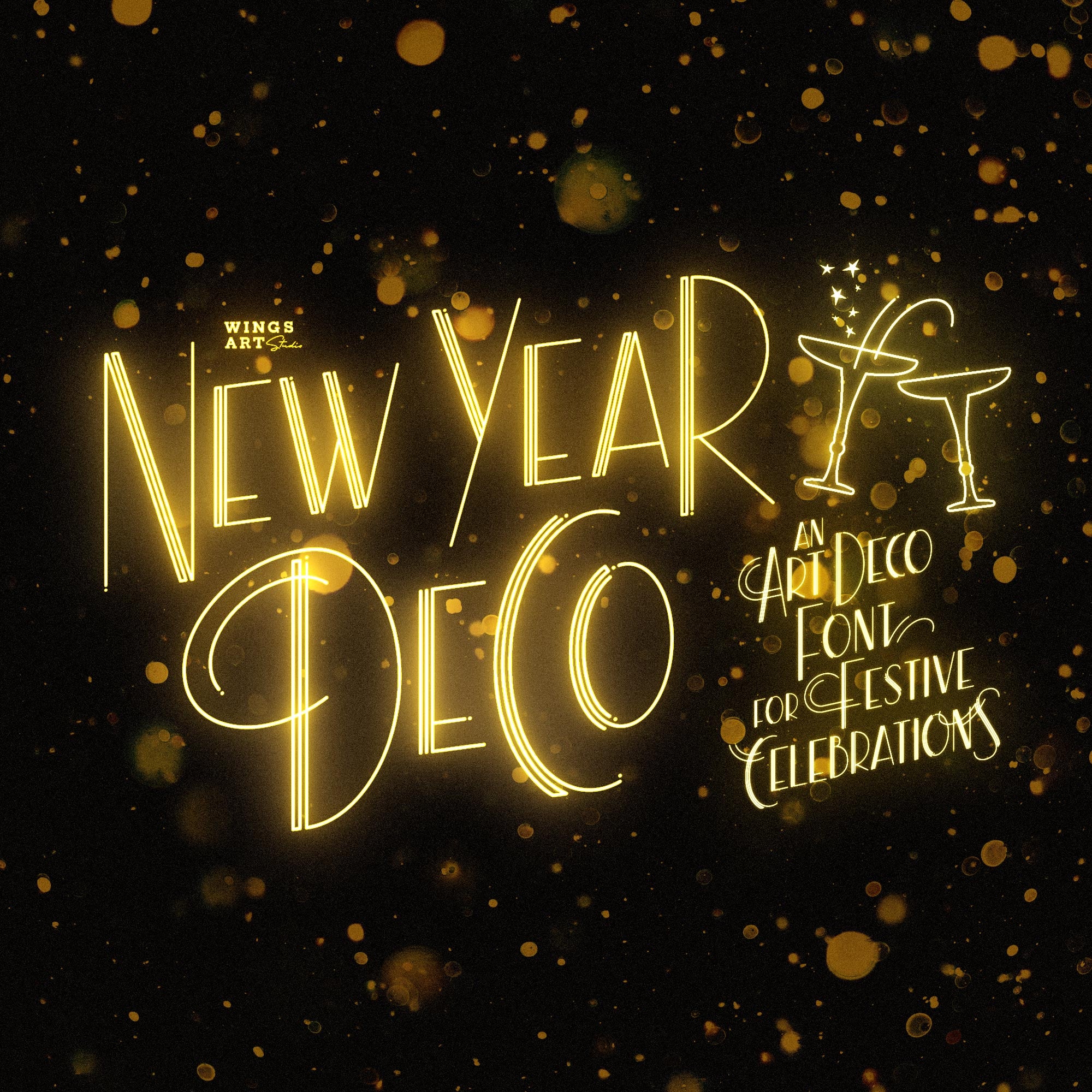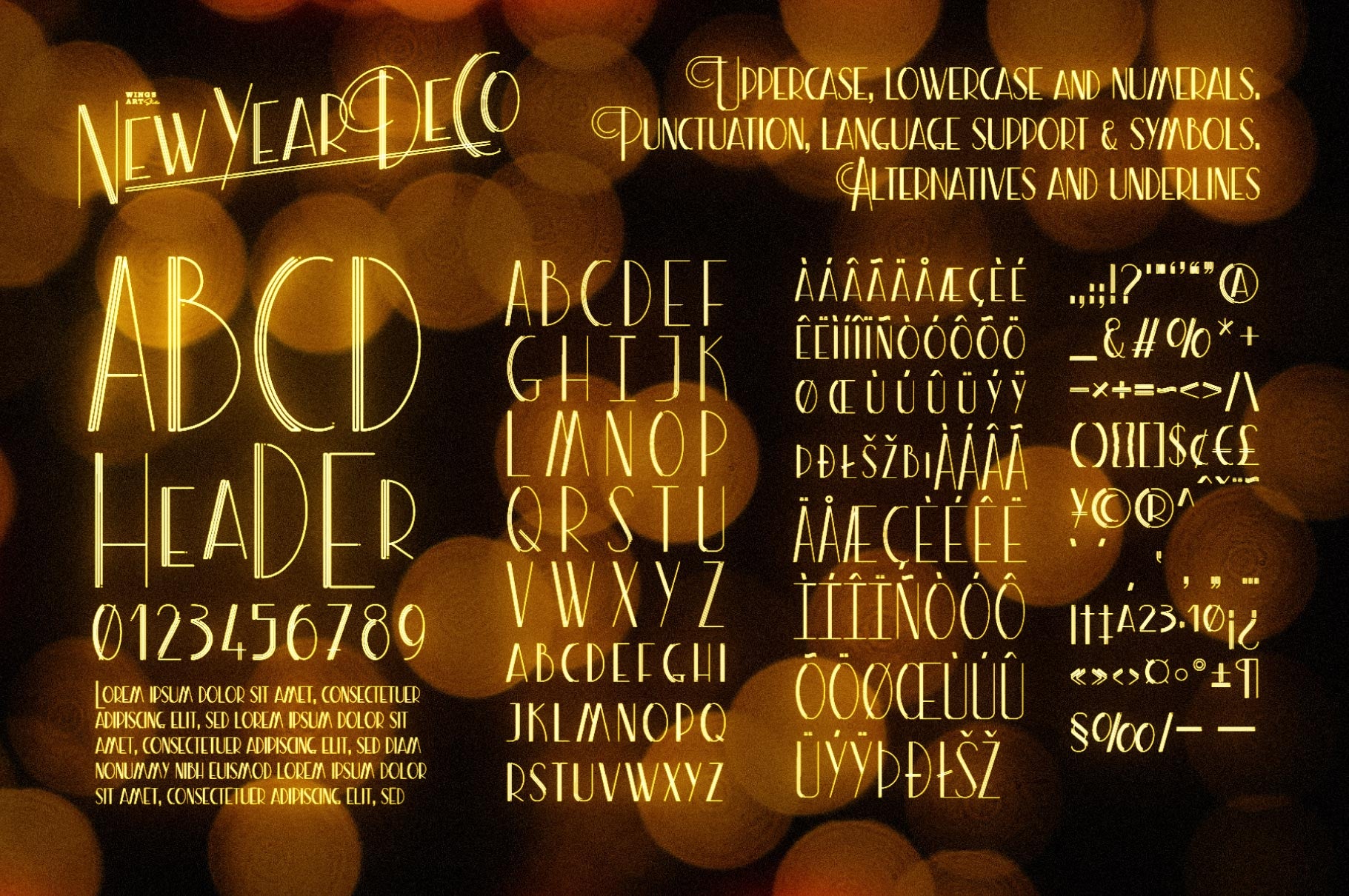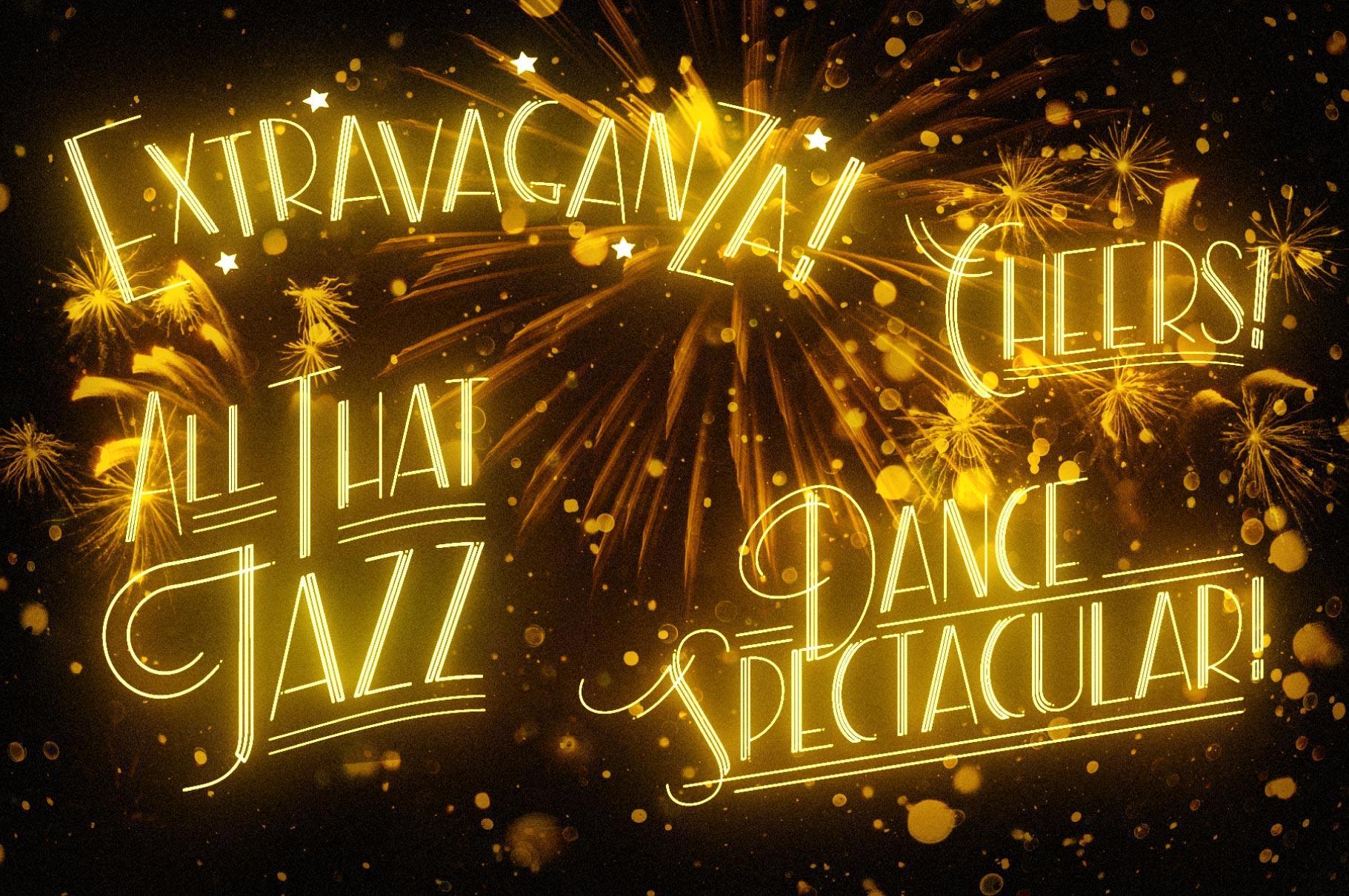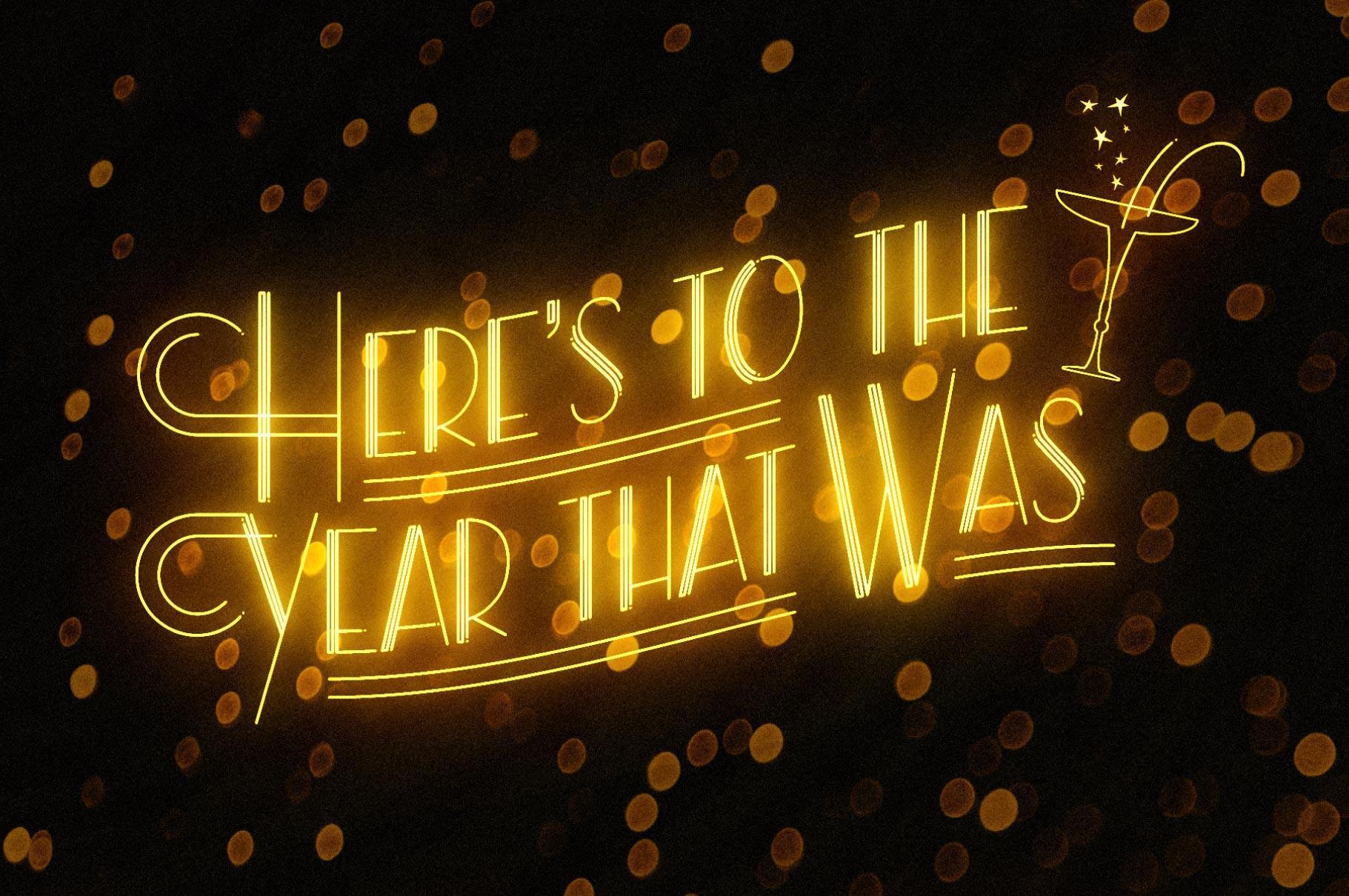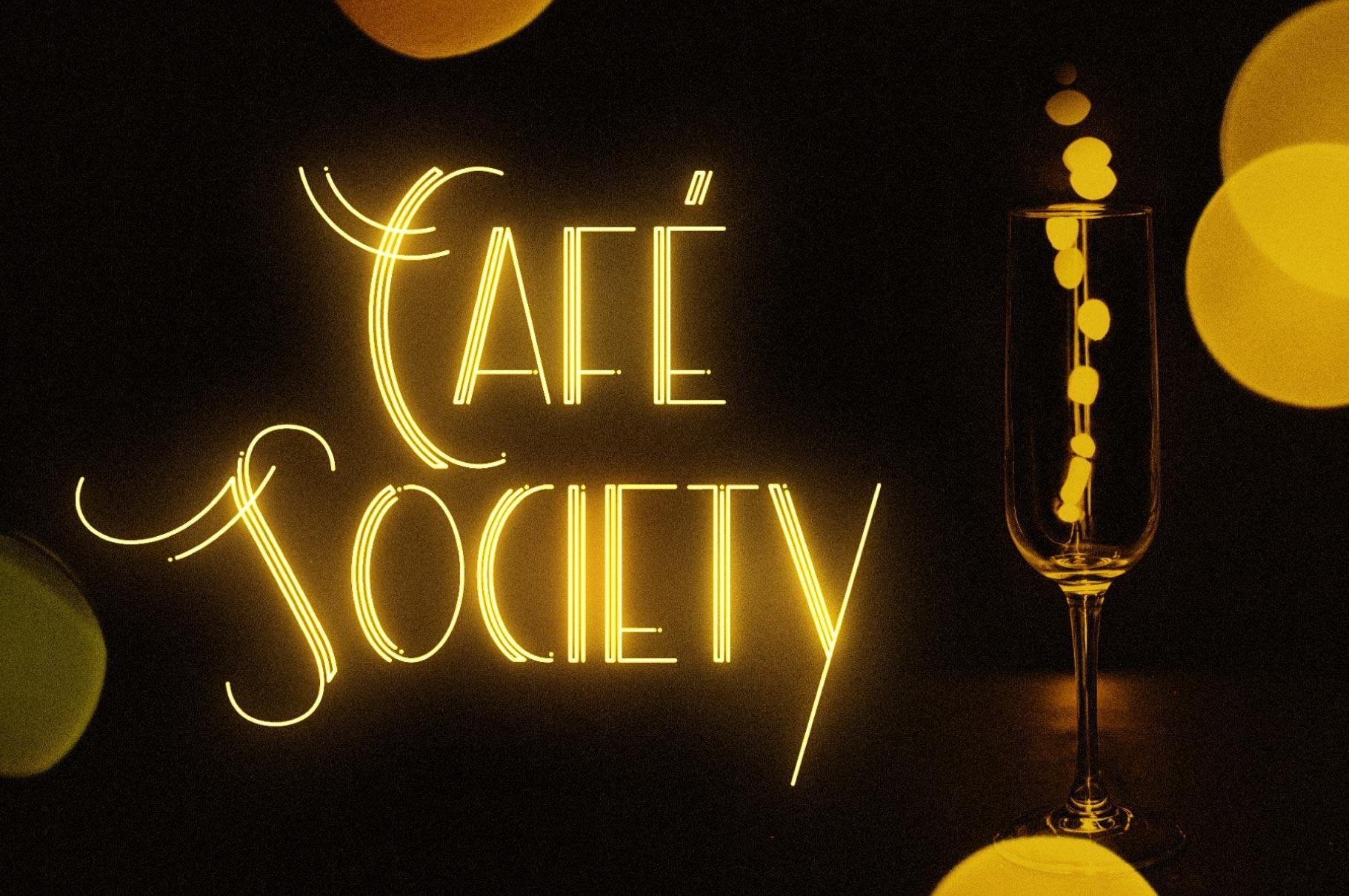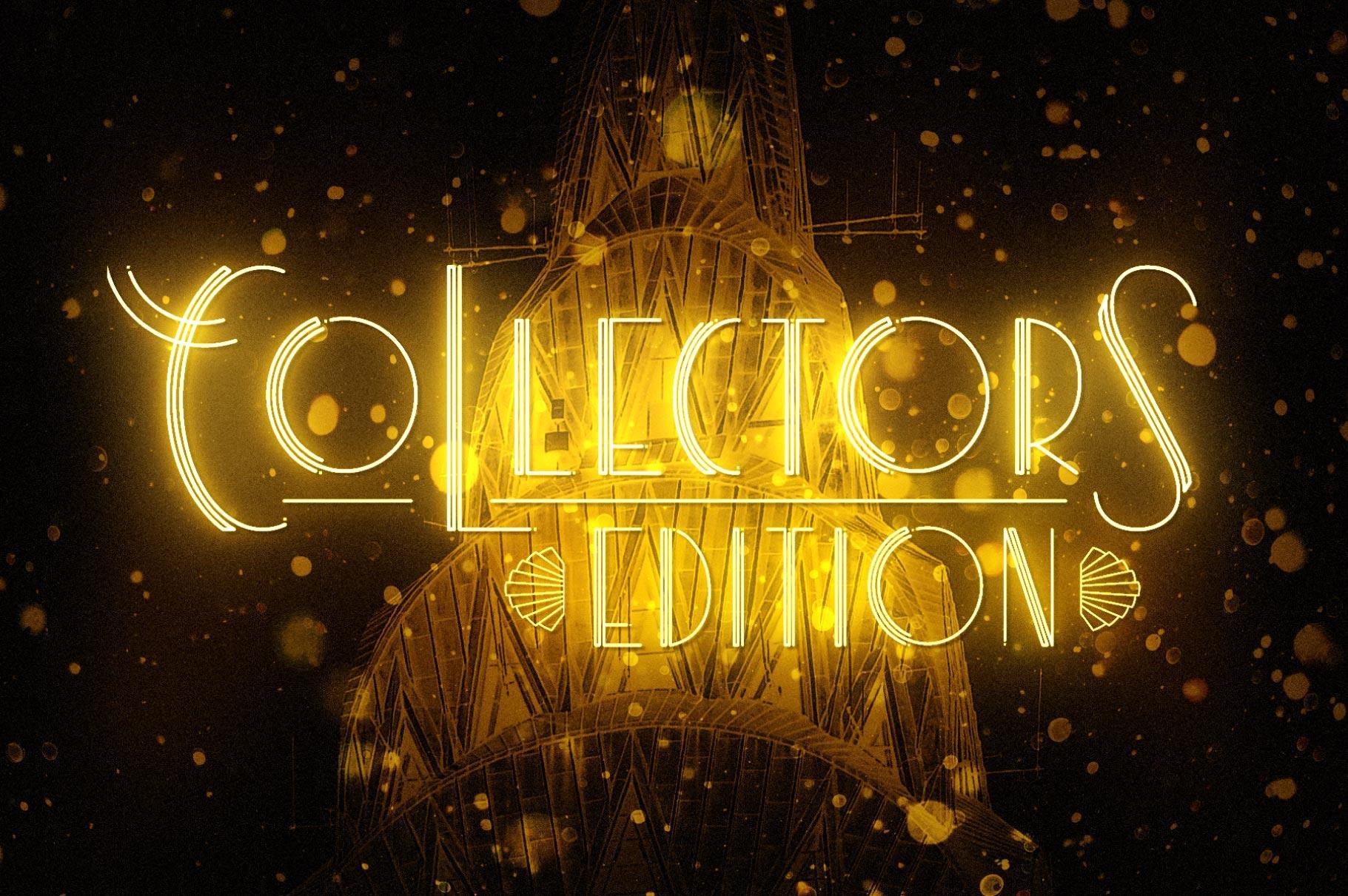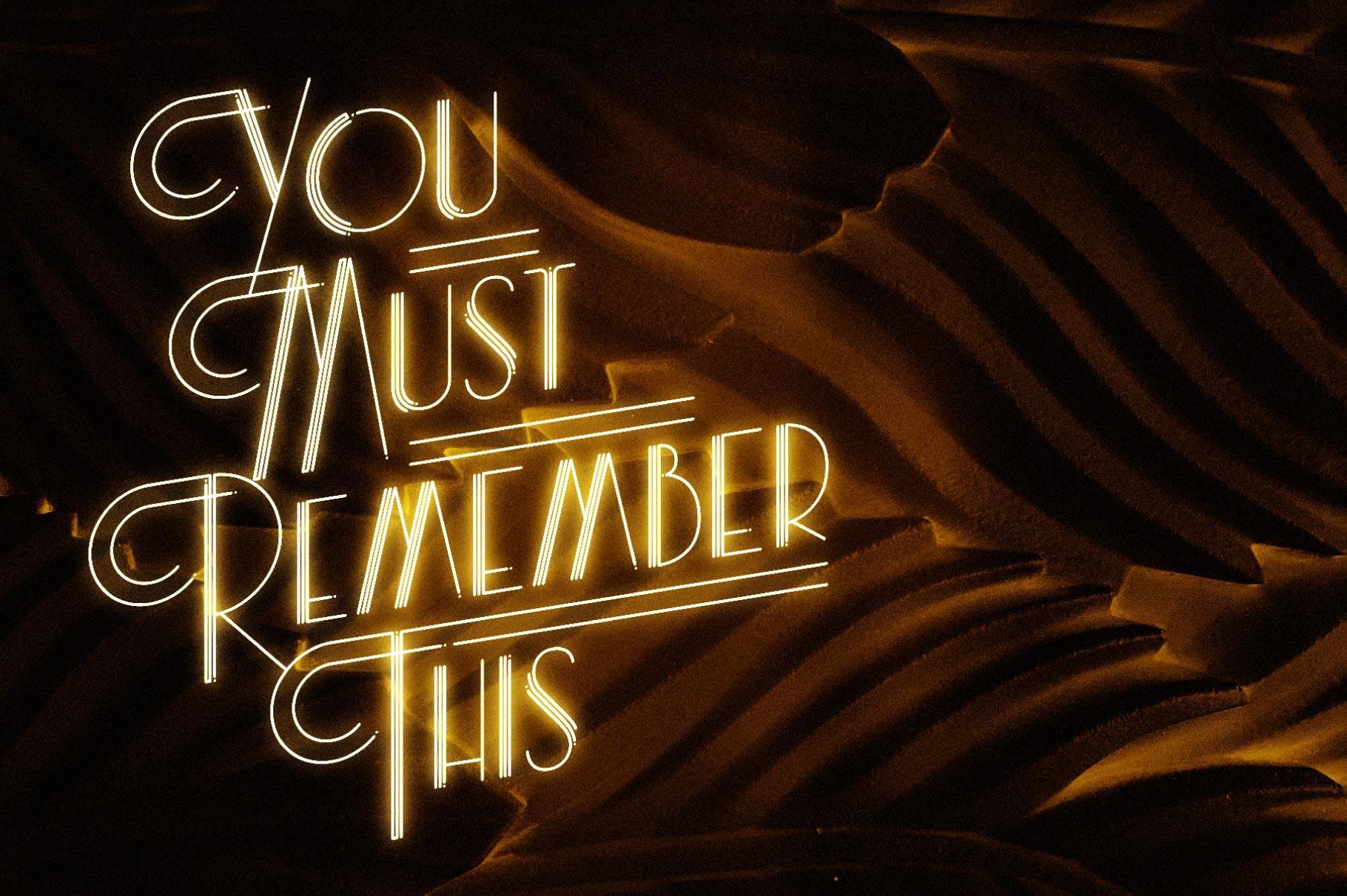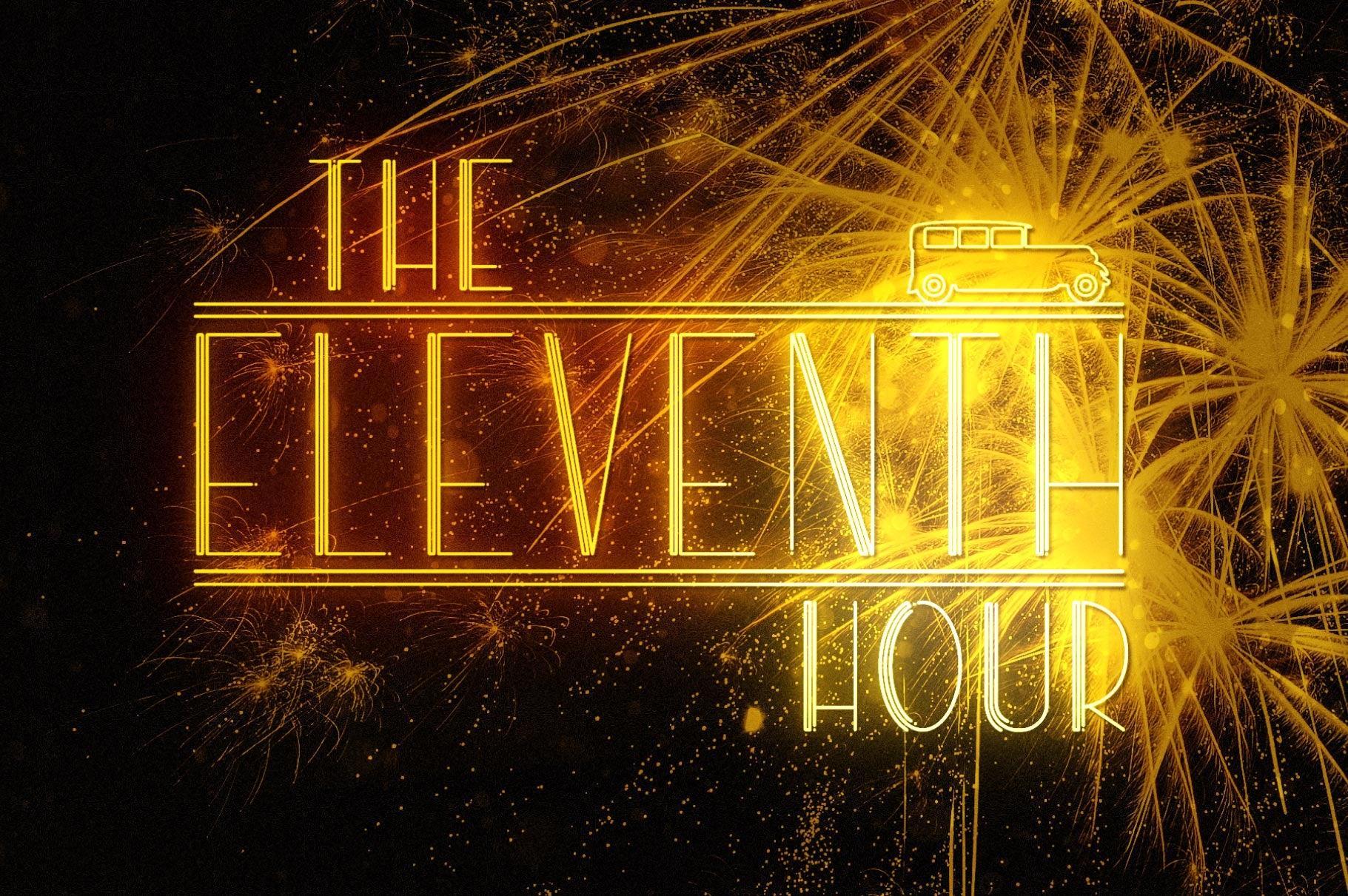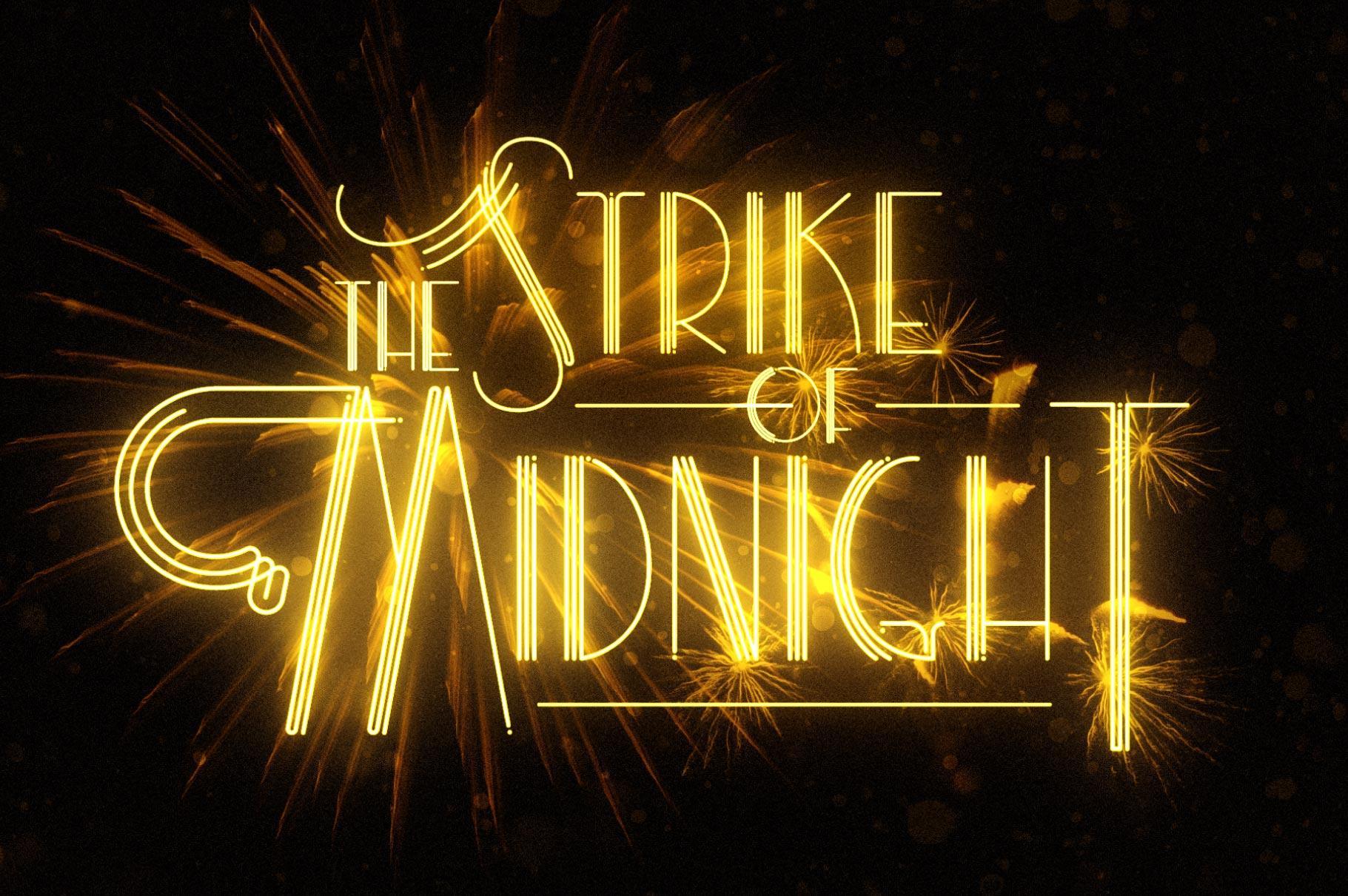
New Year Deco: An Art Deco Font for Festive Celebrations!
New Year Deco is a decorative display font inspired by classic Art Deco design, featuring four alternative styles in an all-caps format. It includes unique uppercase and lowercase characters, numerals, punctuation, language support, and a variety of illustrated symbols, underlines, and icons.
Ideal for vintage-inspired graphic design and elegant typography. Perfect for invitations, award ceremonies, and logo designs, ensuring a sophisticated and festive aesthetic for any creative project.